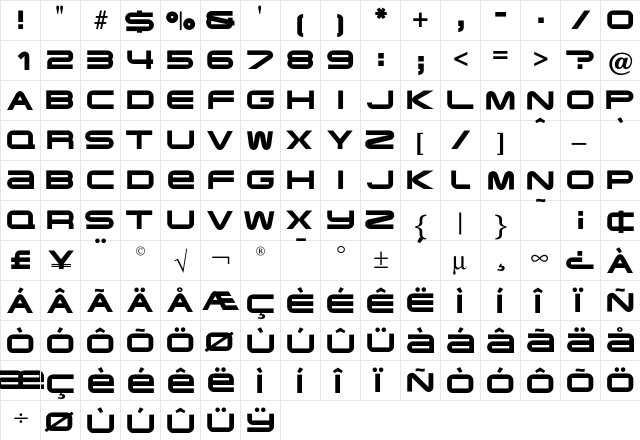
CampOpti-Caps Regular Font Preview
CampOpti-Caps Regular
Design Context for CampOpti-Caps Typeface
CampOpti-Caps is a composed and adaptable typeface that performs quietly and consistently across a wide range of design contexts.